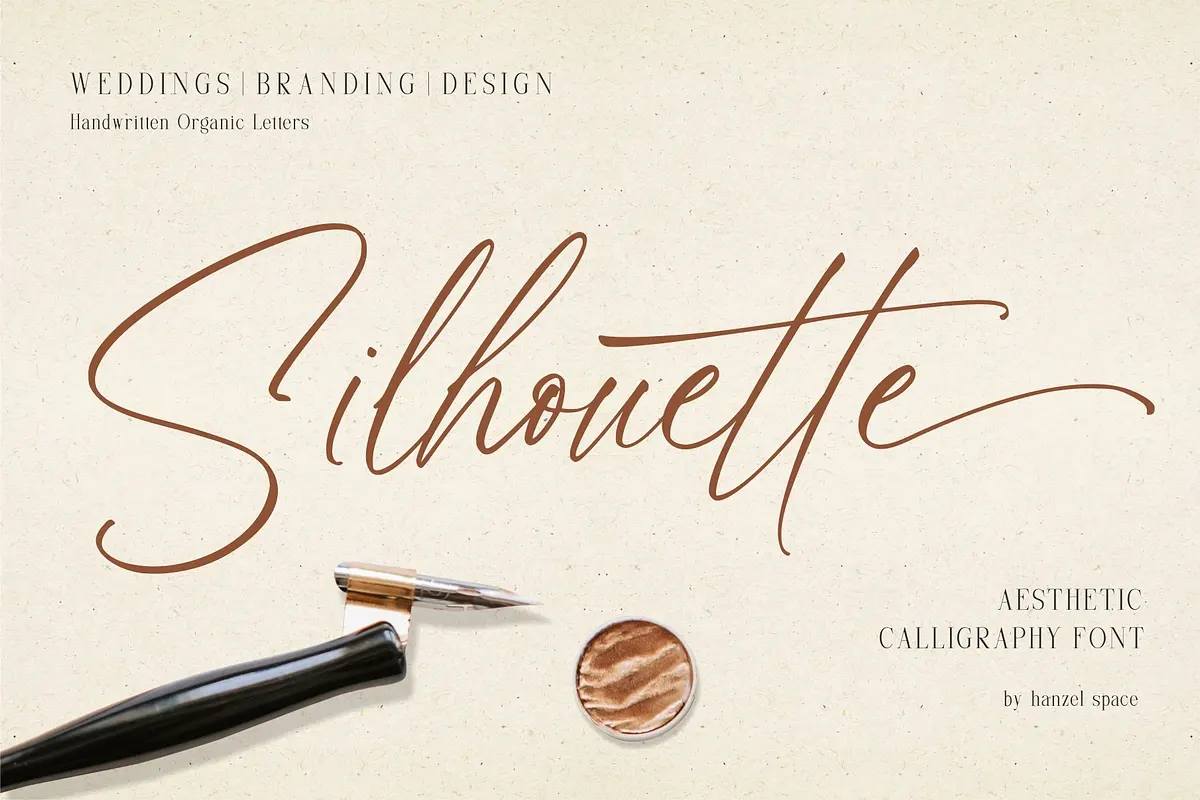
Silhouette Font – Aesthetic Calligraphy  Free Download is a beautiful and flowing script font that captures the elegance of modern calligraphy. Its smooth and artistic letterforms give a sophisticated, artistic vibe that makes it perfect for wedding invitations, branding, greeting cards, fashion-related designs, and social media graphics.
Silhouette Font is designed with graceful curves and gentle strokes, providing a touch of refinement while maintaining readability. Whether you're creating a logo, a signature, or a unique personal brand, this font brings a stylish, aesthetic quality to your typography.